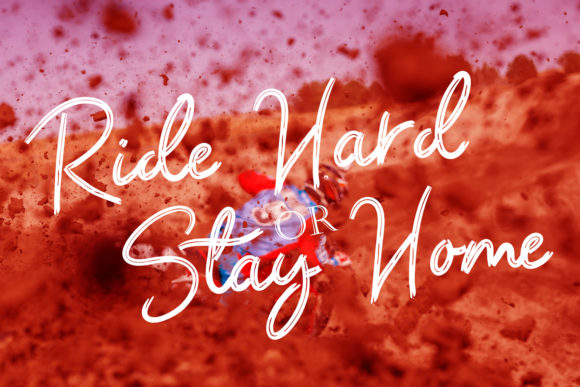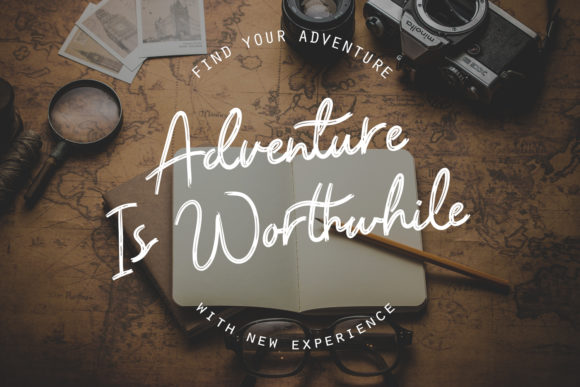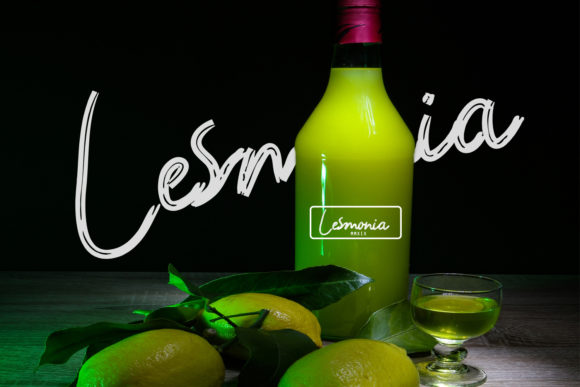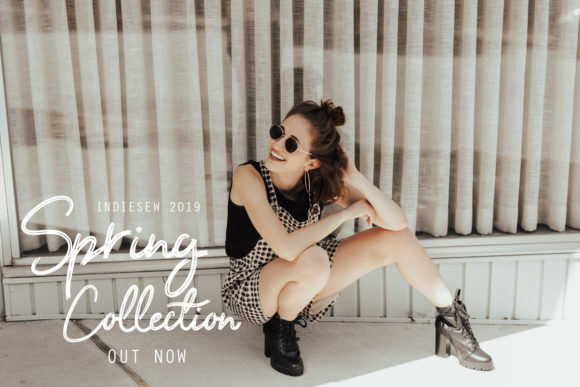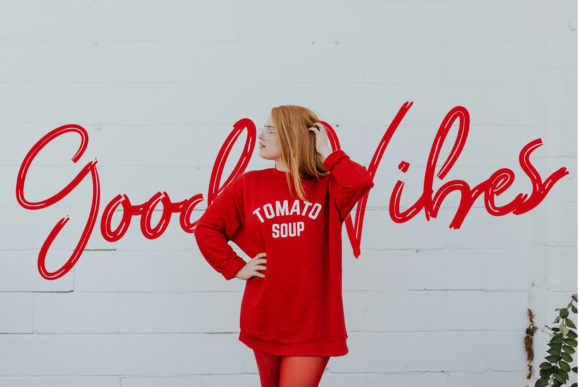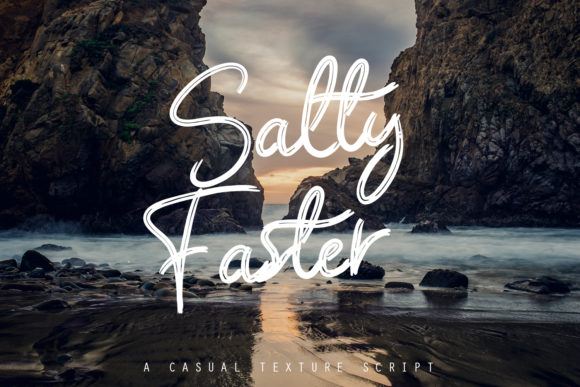
Introduction to Nirwana Font
Have you ever found yourself scribbling down an idea on a piece of paper, only to realize that the handwritten font is more captivating than the message itself? That’s exactly what happens when you come across the Nirwana Font – a high-quality, free download that adds a touch of modern authenticity to any design project.
As designers, we’re always on the lookout for unique and versatile design resources that can elevate our creative work. And that’s where Nirwana Font comes in – a playful and dynamic handwritten font that’s perfect for adding a personal touch to your projects. With its transparent background and effortless feel, this font is an excellent addition to any design arsenal.
Key Features of Nirwana Font
- High-quality design for creative projects, ideal for digital art and graphic design.
- Unique, hand-drawn style with intricate details, perfect for adding a touch of elegance to your designs.
- Transparent background, allowing for easy customization and layering in your creative project.
- High-resolution design, suitable for printing and digital use at 300 DPI or higher.
- Perfect for use in a variety of creative projects, including invitations, posters, and digital art.
Honest Review: Nirwana Font
I recently had the chance to work with the Nirwana Font for a creative project, and I must say I was quite impressed. The font’s high quality and unique style made it a perfect fit for the design I was working on.
- ✨ High-quality design: The Nirwana Font features beautiful, detailed typography that adds a touch of elegance to any design.
- ✨ Transparent background: The font’s transparent background allows for easy layering and manipulation in design applications.
- ⚠️ Limited font styles: The Nirwana Font only comes in a few font styles, which may limit its versatility for certain projects.
- ⚠️ Not ideal for large text: While the font looks great for headings and smaller text, it may not be the best choice for large blocks of text.
Overall, I was really happy with the Nirwana Font and would recommend it as a free design resource for anyone working on a creative project. With a little creativity, the limitations of this font can be easily overcome.
For high-quality results, use Nirwana Font in conjunction with a transparent background to create a seamless design. This font is perfect for creative projects that require a touch of elegance and sophistication.
Nirwana Font is ideal for use in design projects such as logos, brochures, and business cards. Its high-quality design and free download make it a valuable design resource for both personal and professional projects.